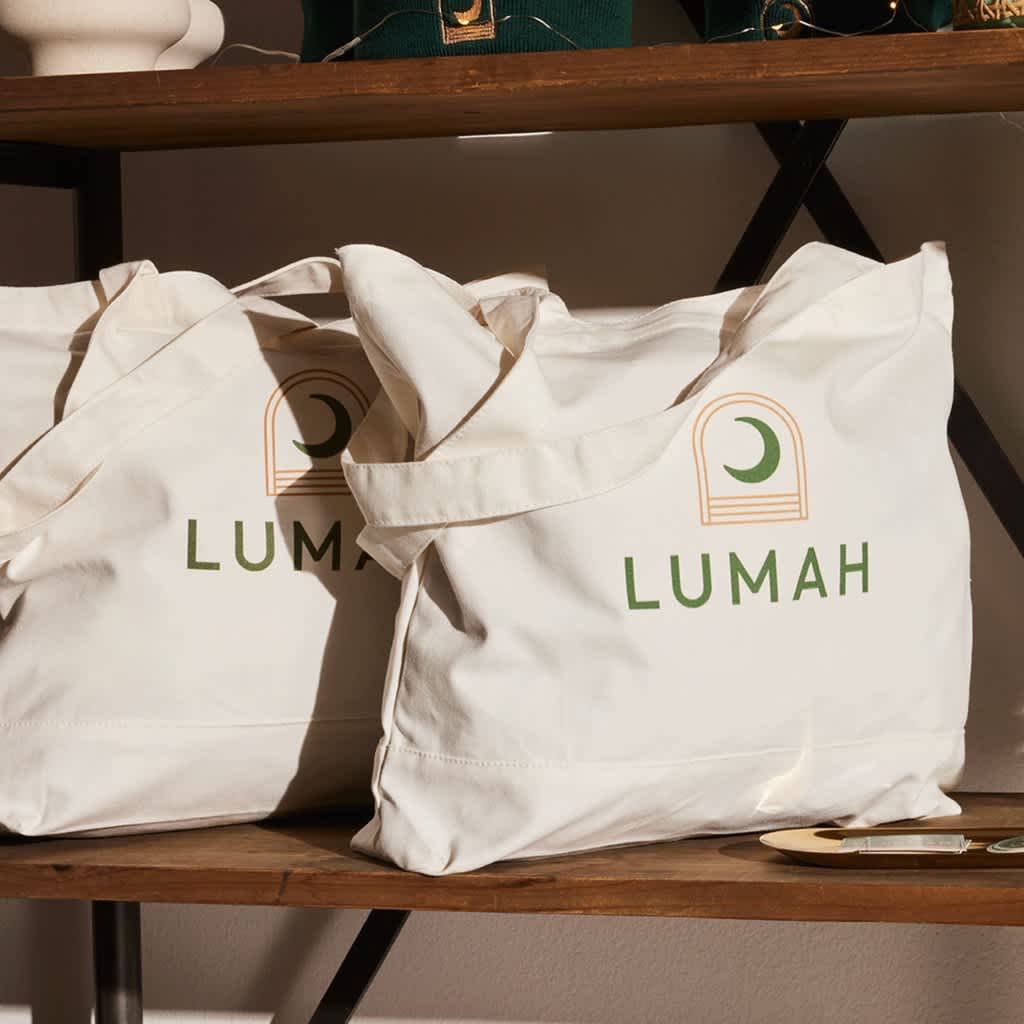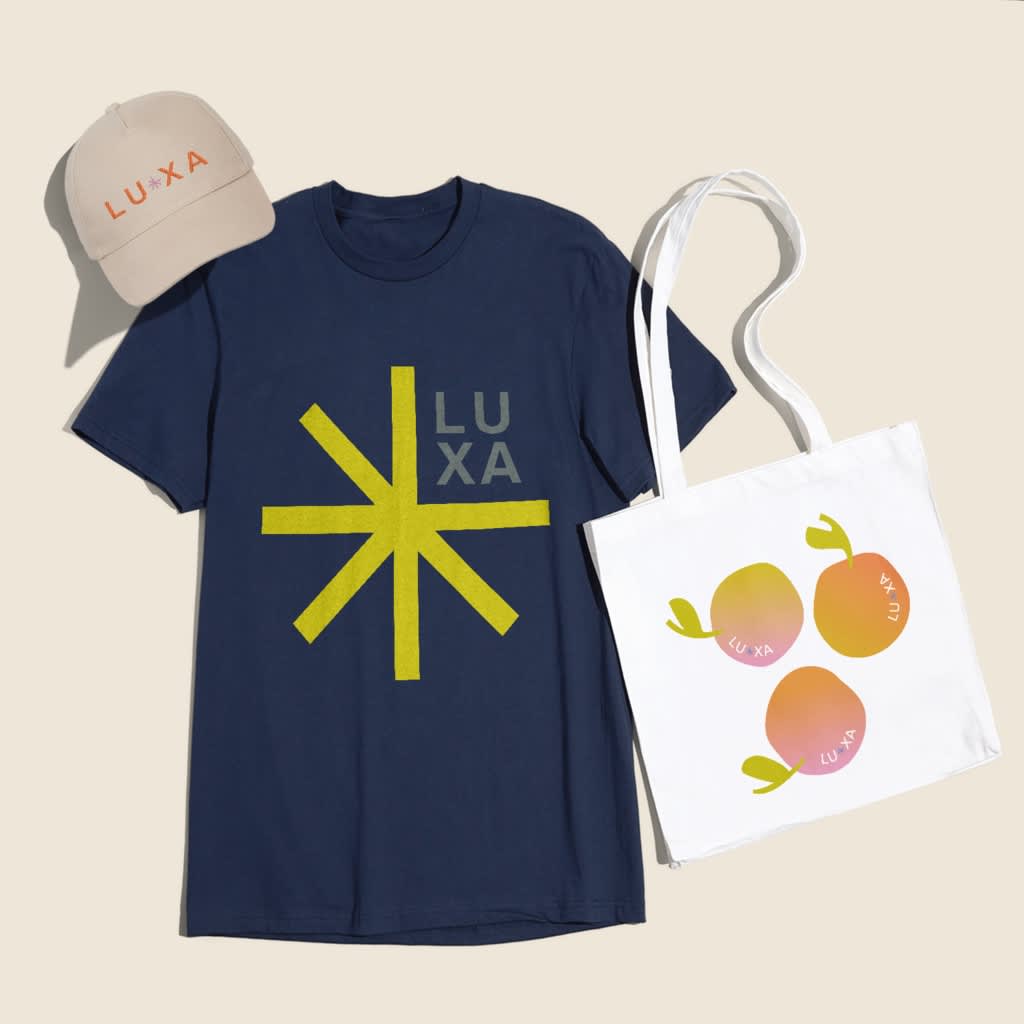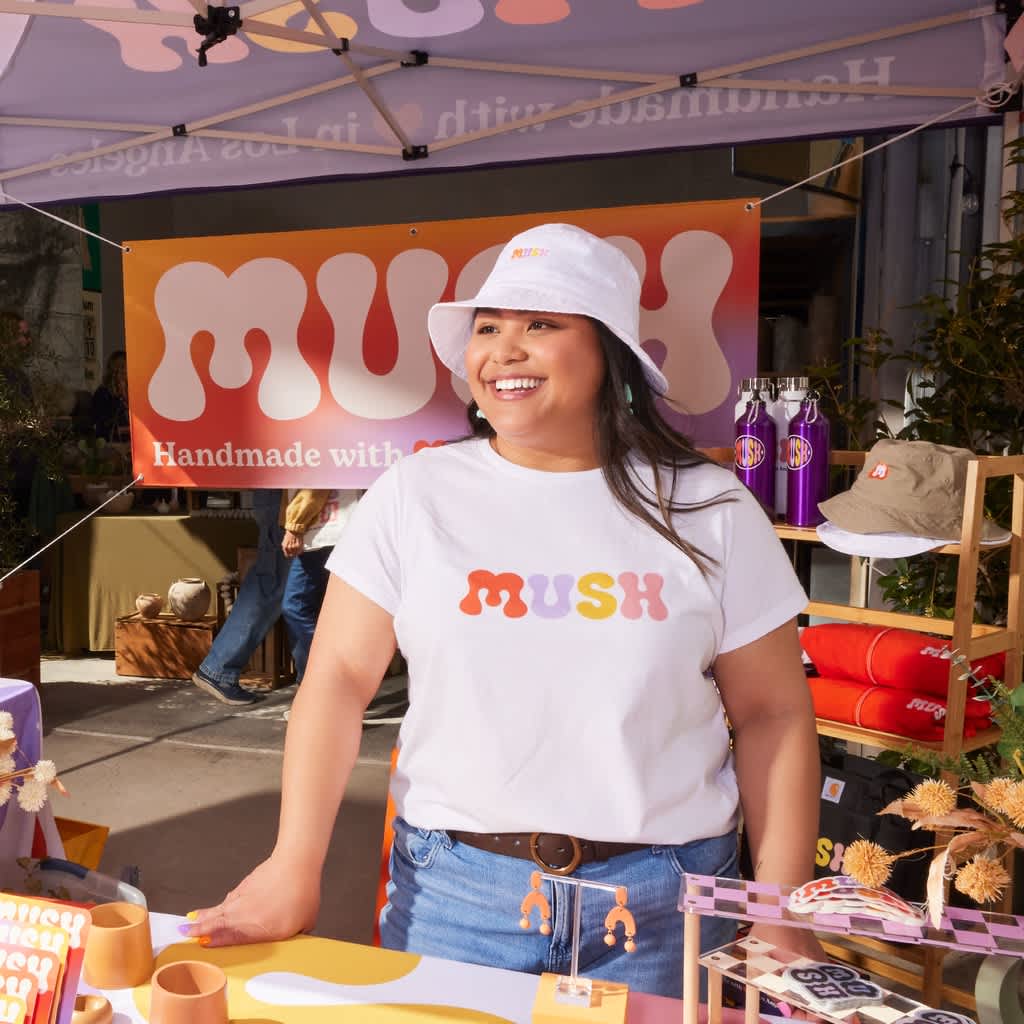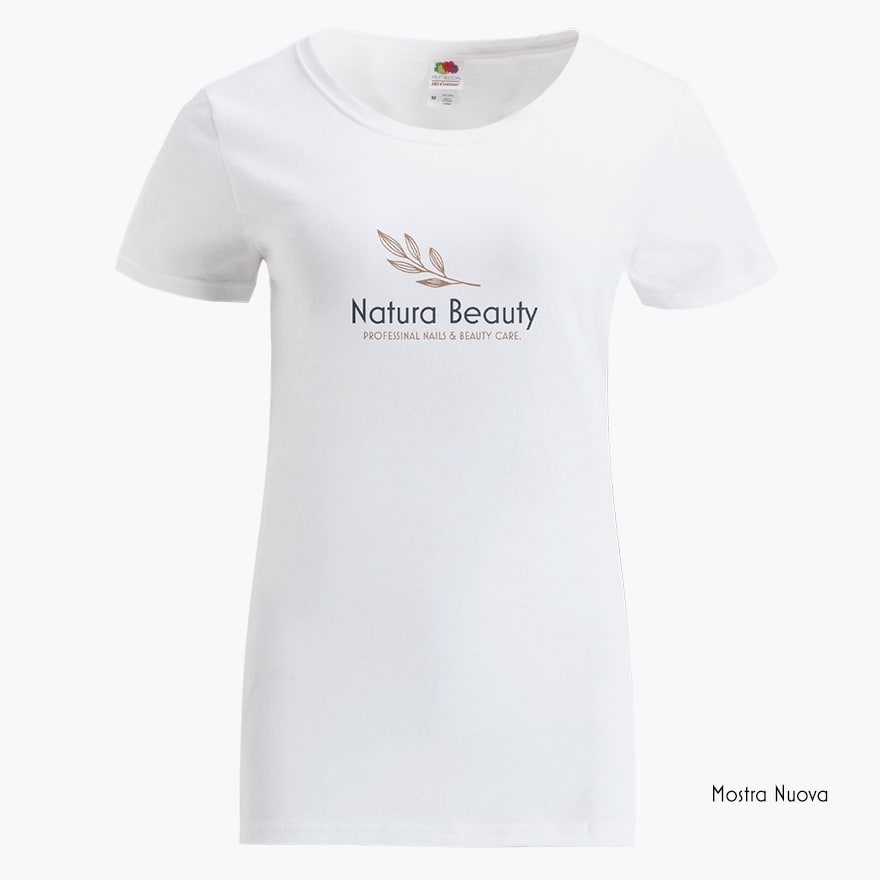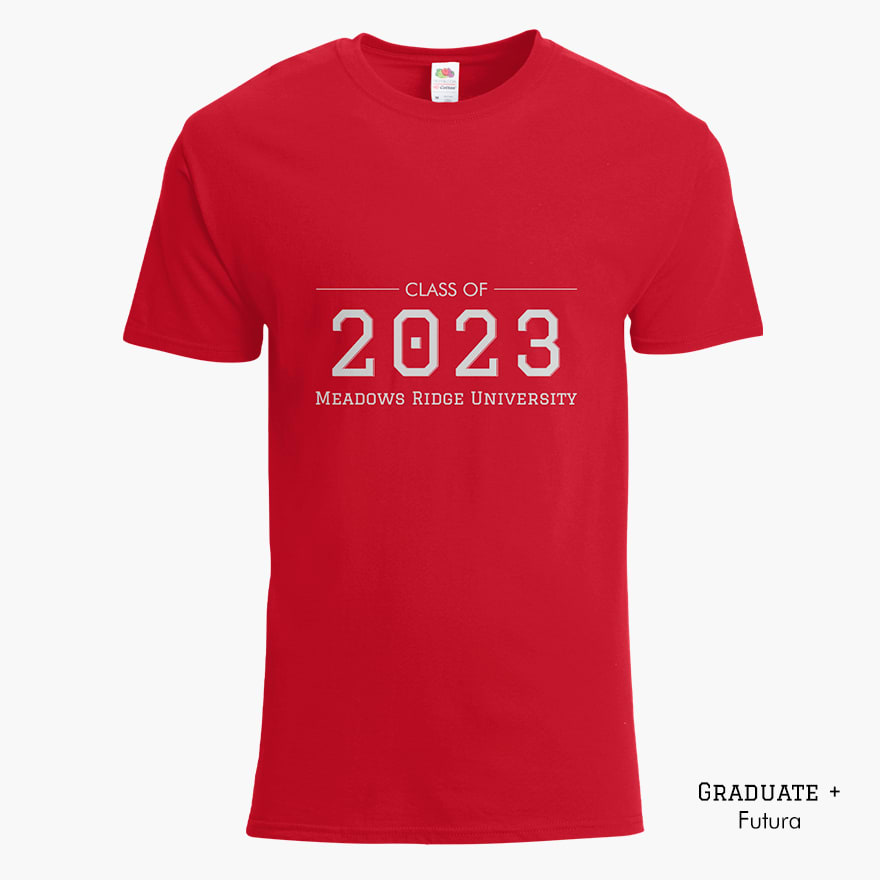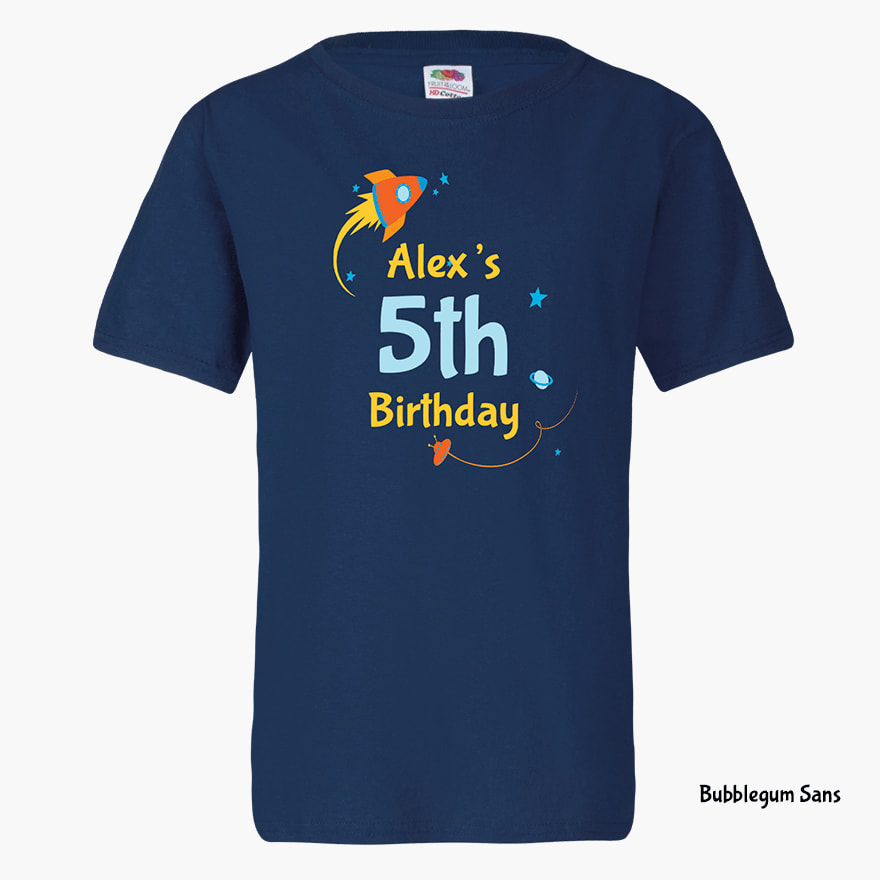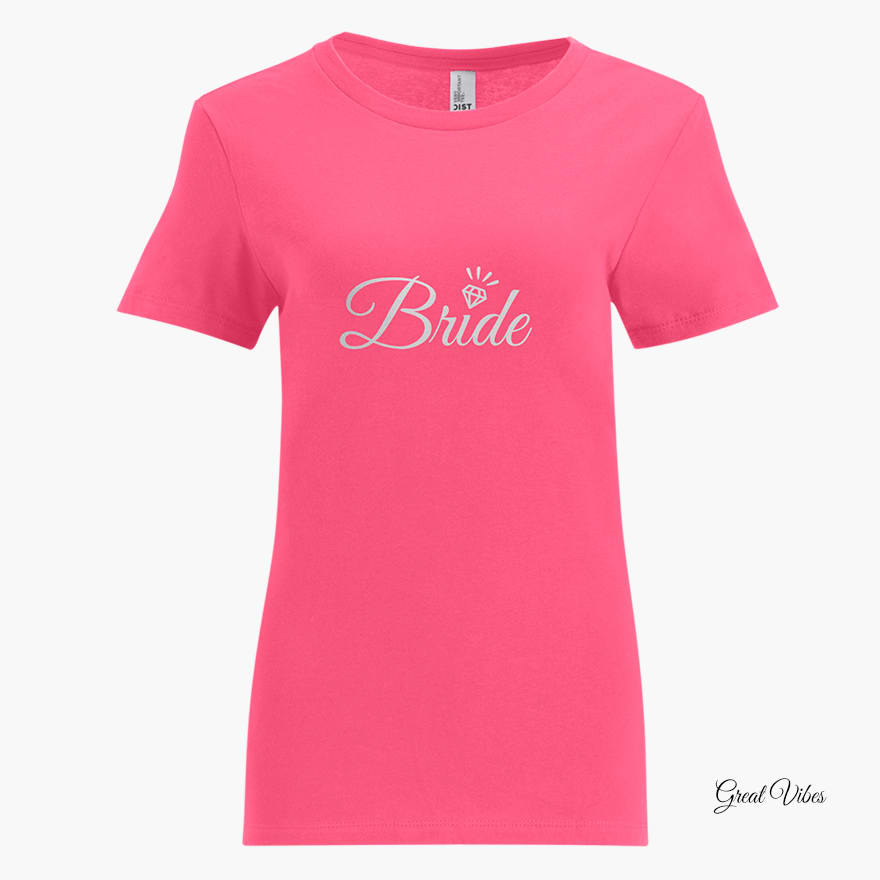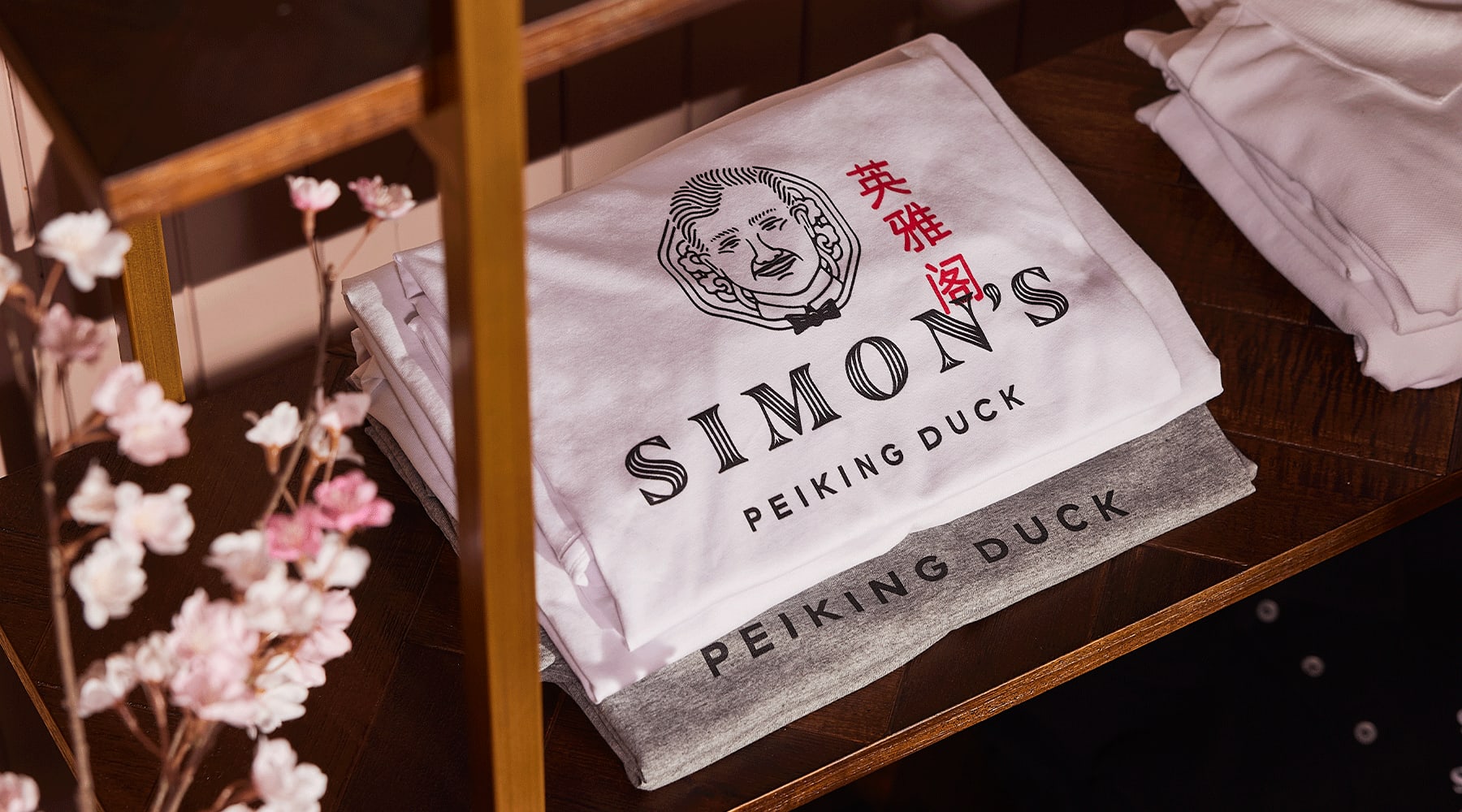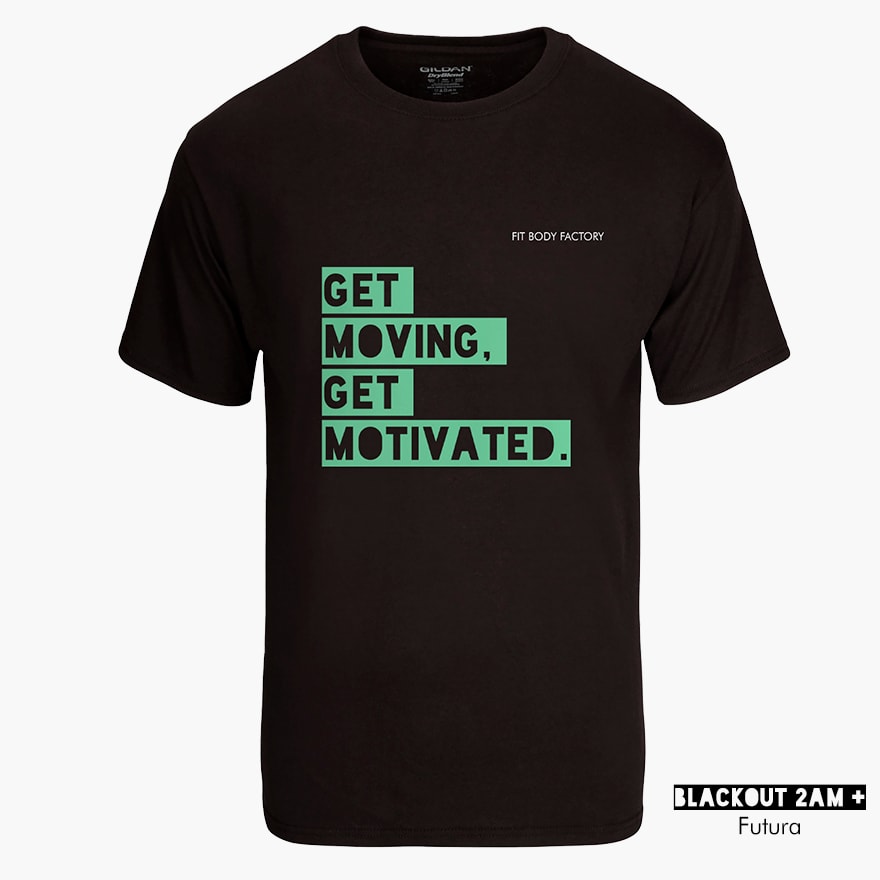
Introduction
When it comes to designing a captivating T-shirt for your brand, choosing the right fonts plays a pivotal role. Not only do the fonts you choose help in capturing attention for your merch, but they also convey your message. From traditional to modern, script and more, fonts for T-shirt designs can significantly boost brand awareness and help you engage with more customers.
In this article, we’ll be diving into the many factors that go into picking fonts for your designs and some of the most popular T-shirt fonts – we’ve also got some tips for pairing fonts together for unique, branded T-shirts.
Why are T-shirt fonts important?
Fonts are crucial for T-shirt design for numerous reasons. For starters, they can help enhance brand identity and recognition. T-shirt fonts allow you to convey your message effectively. They can also help distinguish your brand from the competition – regardless of what market you operate within.
What’s more, choosing the right fonts for your T-shirt design can tell your audience that you’re detail-oriented and professional – improving their trust in your business as a result. Fonts can transform regular T-shirt designs into eye-catching billboards for your brand – making them a valuable asset for any business owner.
What to consider when choosing T-shirt fonts?
Before we delve into some of the more popular T-shirt fonts and on-trend typefaces, let’s go through some of the factors that you should consider when choosing a T-shirt font.
1. Readability. First off, you have readability. Of course, the main objective of any text you include on your T-shirt, whether it’s your brand name, slogan or message is to be read. So, it’s important to select a font that is clear and appropriately sized. For example, say you’re designing T-shirts for your employees with their names attached. Then, it might be a good idea to use fonts that are clear and legible.
But it all depends on the context. You might be designing T-shirts for a Halloween-themed event instead. In this case, it’s appropriate to use gothic, playful fonts that might not be as legible as your average traditional font. Either way, readable T-shirt fonts enhance customer experience and prevent any confusion or frustration they might have. They also encourage engagement from both the wearers of the T-shirts as well as the viewers.
2. Relevancy. Preferably speaking, each element of a T-shirt design should align with your brand’s identity. Anything from the colors of the T-shirts to your logo as well as the fonts you choose. Using fonts that reflect your brand’s personality can help create a unified look for your business.
But like any other rule, there are always exceptions. And the exception to this rule is aligning your fonts with an event you’re hosting or a promotion you’re running instead of your brand’s personality. Incorporating graphic tee fonts that match the theme of your event can help immerse your attendees in the atmosphere. Say you’re hosting an event that’s futuristic-themed, it’s best to use modern, cyberpunk-like fonts for that event’s merch. Such an alignment can help your customers better understand the event’s purpose as well as make it a memorable experience for them.
3. Balance. When it comes to picking the best T-shirt fonts, it’s important to include your logo or artwork in the equation. After all, reaching a balance between your logo, artwork and font will enhance the appeal of your T-shirt design.
For instance, if you have a logo or artwork that is busy, a simple font may work best for a cohesive and pleasing T-shirt design. On the other hand, loud and expressive fonts can complement minimalistic logos or artworks.
VistaPrint Tip
You can mix and match different T-shirt fonts for a unique and visually interesting design.
What are the different font categories?
Now that you’ve learned about the importance of T-shirt fonts, and what you need to keep in mind when selecting a font, let us dive into the 5 main font categories that you can find in our easy-to-use design studio.
1. Traditional fonts
Also known as serif fonts, these graphic tee fonts feature small decorative lines at the ends of each stroke, known as “serifs”. They’re commonly used in printed materials like books, newspapers and academic documents.
Their traditional look can help create a sense of elegance and sophistication – a great font category for adding a touch of professionalism to your branding. So, it comes as no surprise that many brands that operate in industries like fashion, luxury goods and professional services prefer these fonts.
So, here 3 examples of these fonts that you could use:
2. Modern Fonts
Also known as sans-serif fonts, these fonts lack the serifs of traditional fonts. The result is a cleaner and more modern look. Widely used for digital content, moder fonts are everywhere on your screens – from social media to your favorite websites and more.
Modern fonts also appeal to younger audiences due to their contemporary and trendy vibe. They’re also great for various industries such as technology, fashion, entertainment, sports and more.